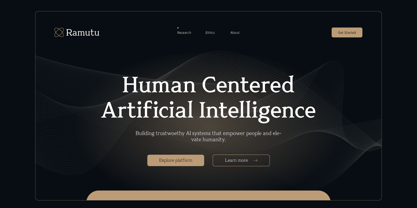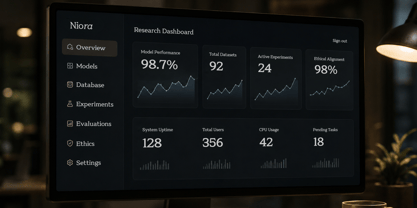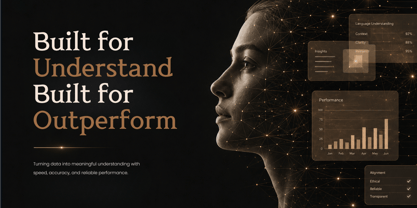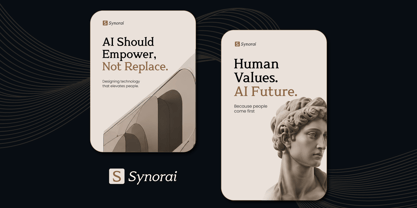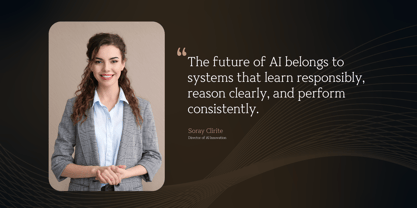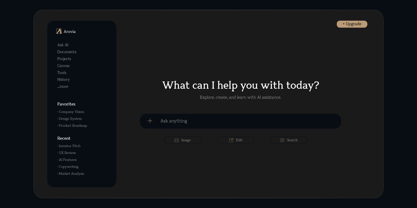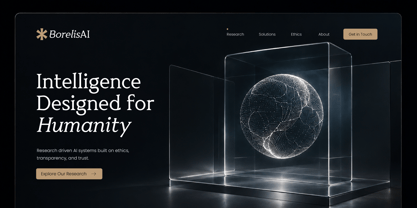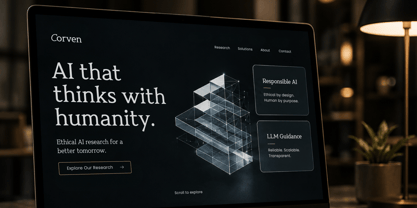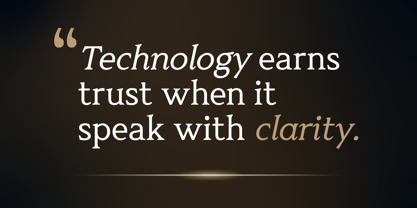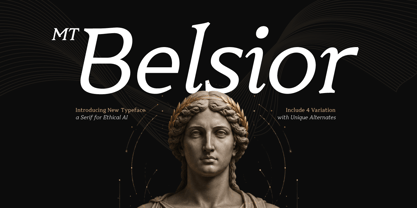
MT Belsior
The MT Belsior Font Family was designed by Rozikan and published by Twinletter. MT Belsior contains 8 styles and family package options. More about this family
MT Belsior - Ethical AI Serif is a premium serif font designed to convey an elegant, intellectual, and trustworthy impression for brands in Artificial Intelligence, technology, SaaS, research, and digital innovation. Featuring a modern serif character with balanced proportions, subtle contrast, and precise details, this font creates an exclusive yet human-centered visual identity. It is perfect for brands seeking to build a professional, visionary, and future-oriented image.
This font is ideal for AI startups, technology websites, SaaS landing pages, OpenAI tools, chatbot platforms, corporate branding, UI/UX interfaces, editorials, presentations, and various digital and print needs. Its high readability makes it comfortable for use in headlines, logos, hero sections, and editorial typography, resulting in a luxurious and classy visual experience.
Equipped with various styles, alternates, multilingual support, and professionally designed characters, MT Belsior offers high flexibility for a variety of modern branding needs. The combination of classic nuances and futuristic technology makes it a perfect choice for AI companies, research institutes, software companies, creative agencies, and premium technology businesses.